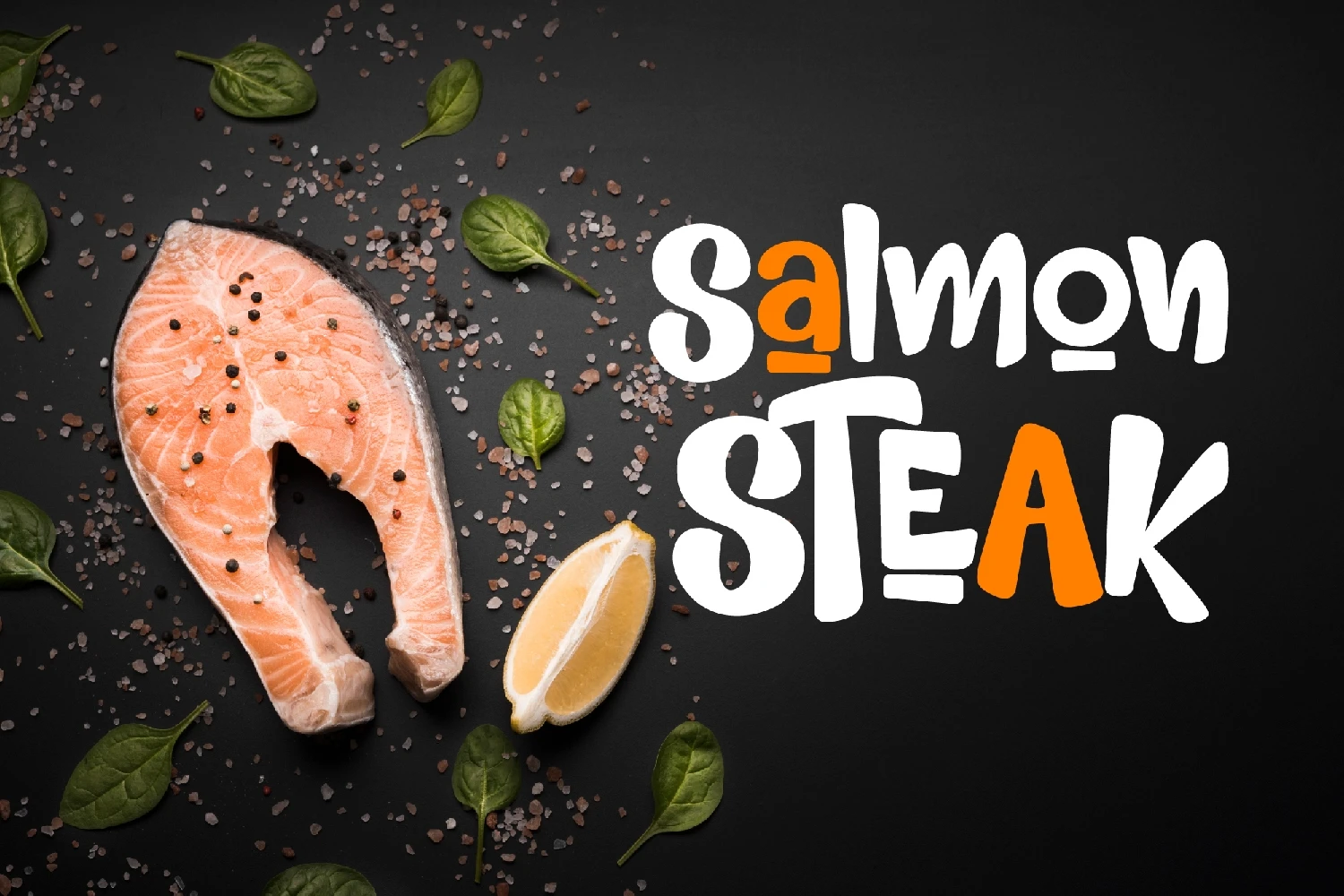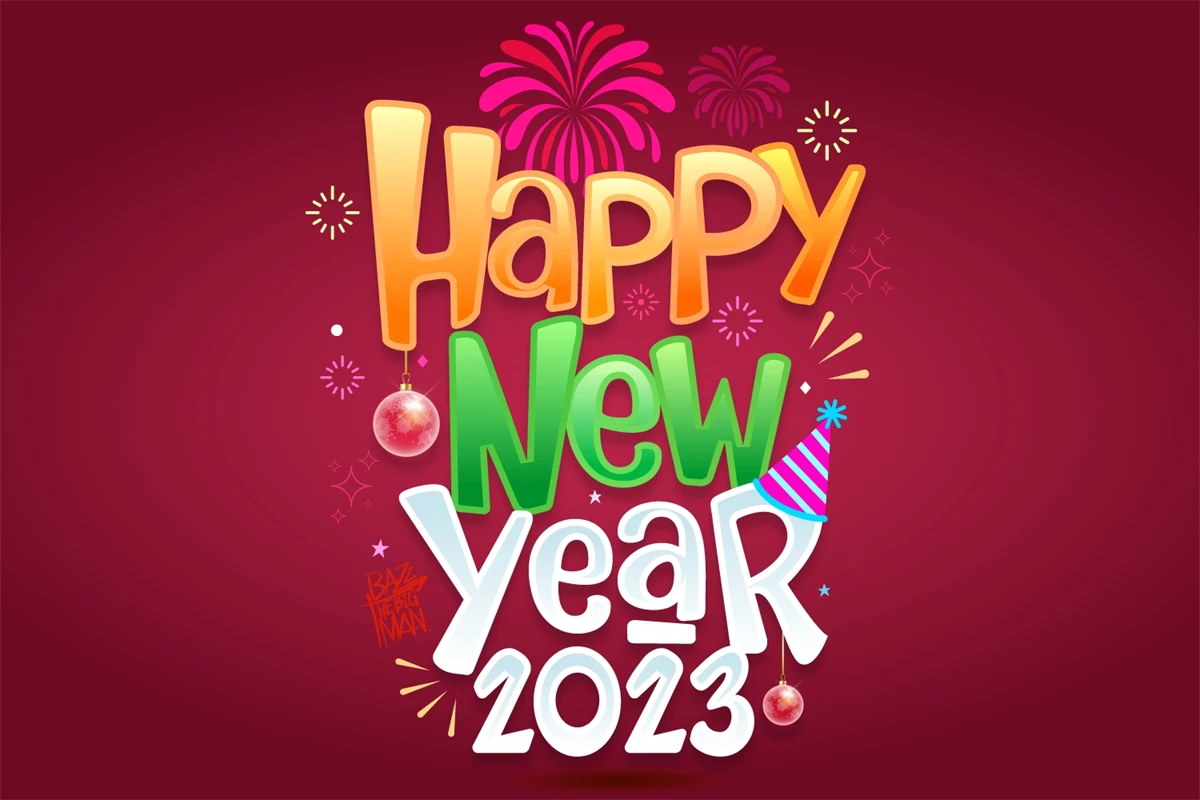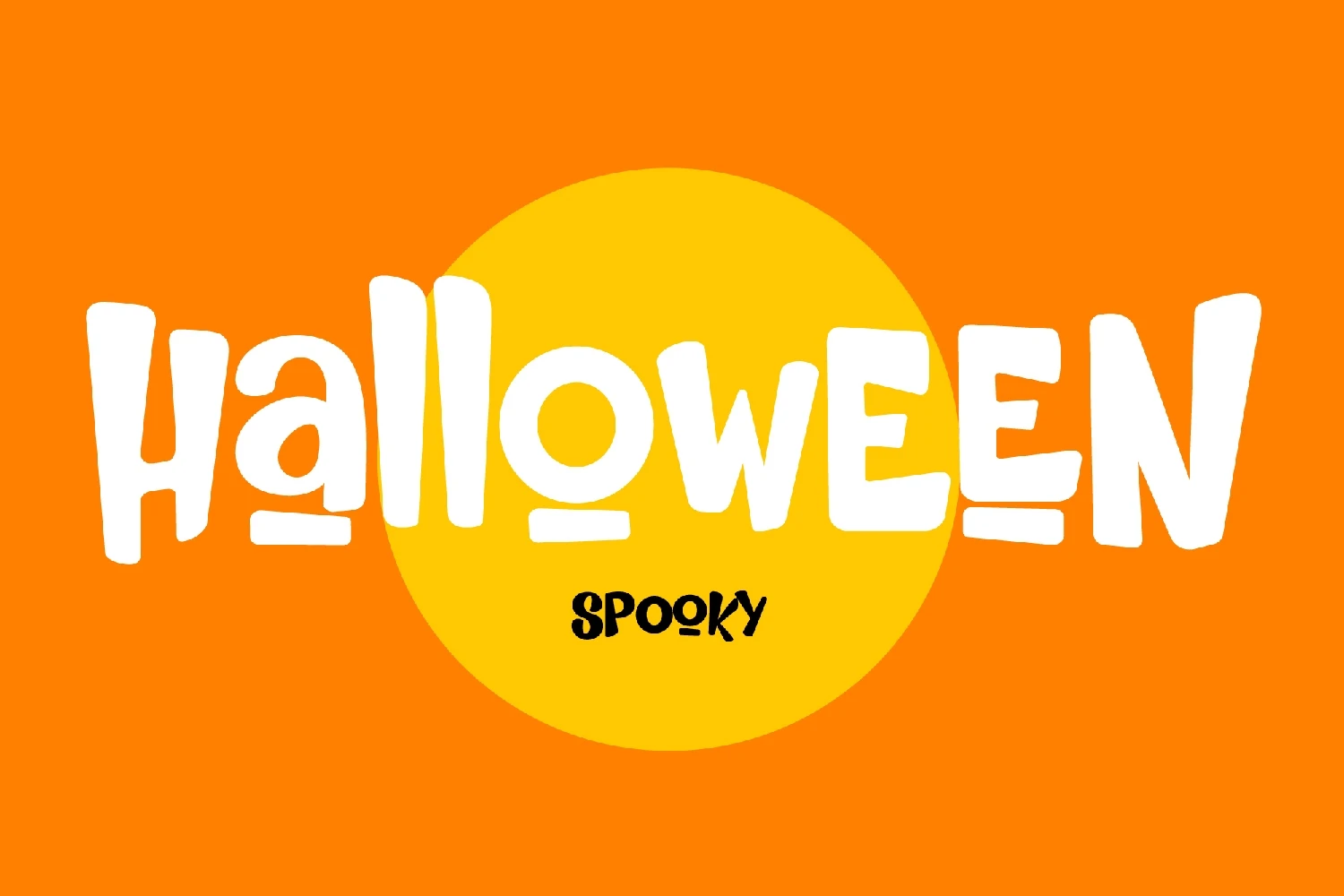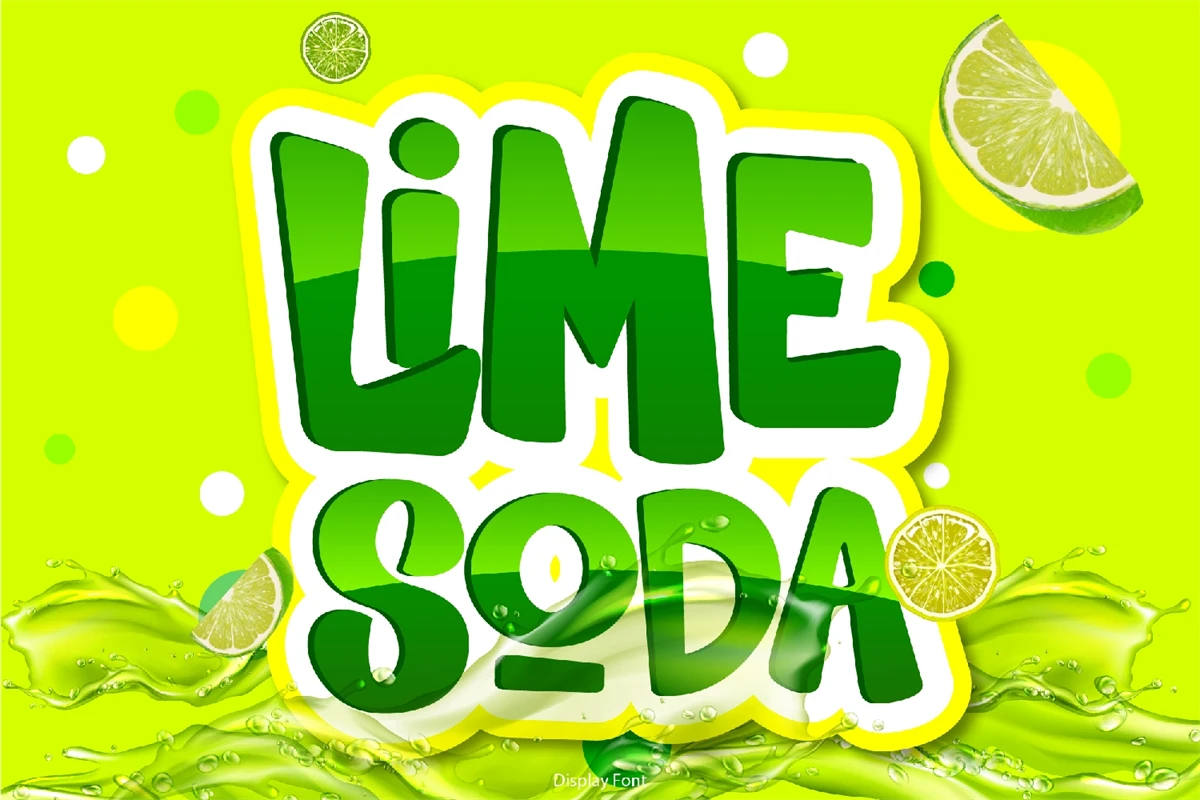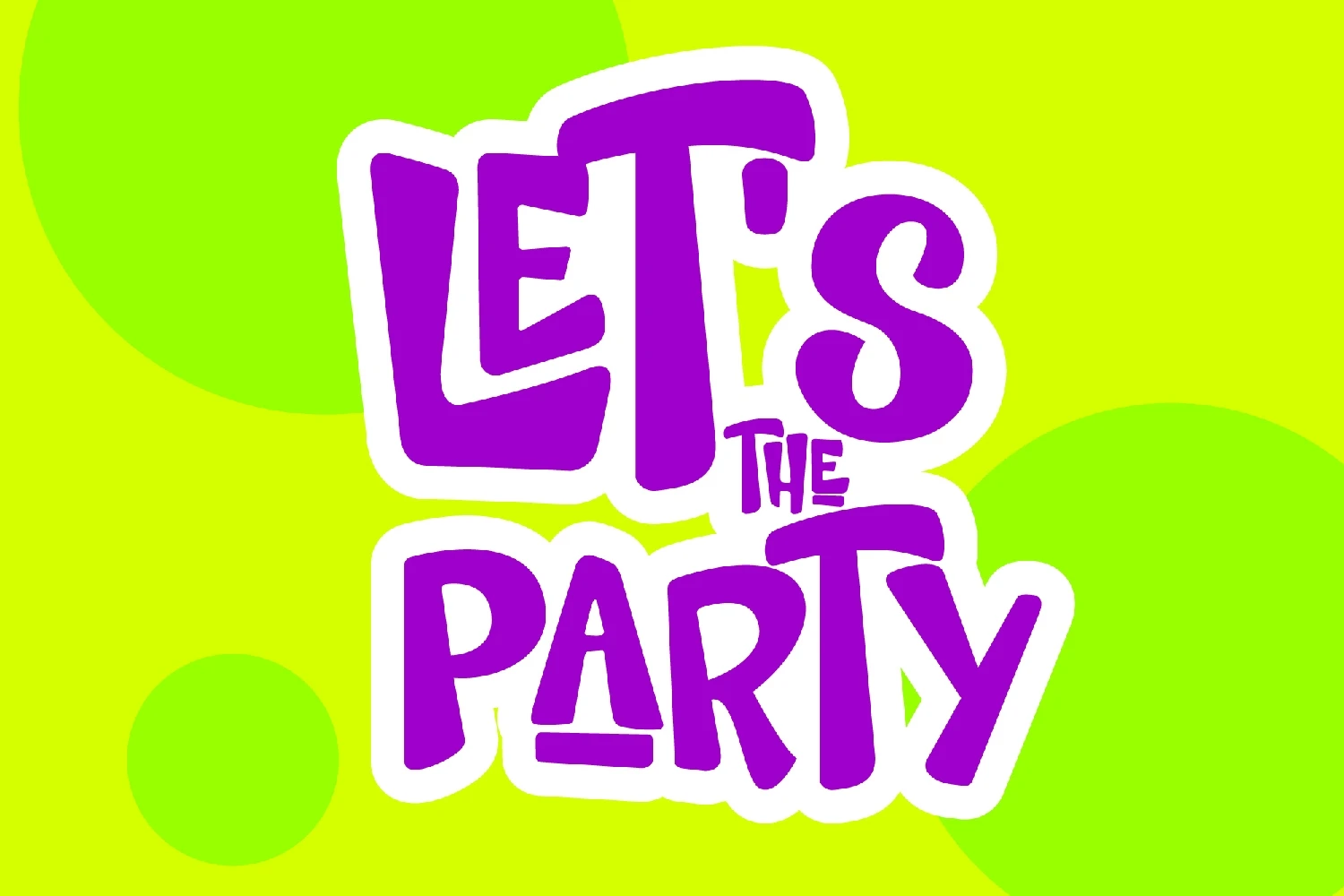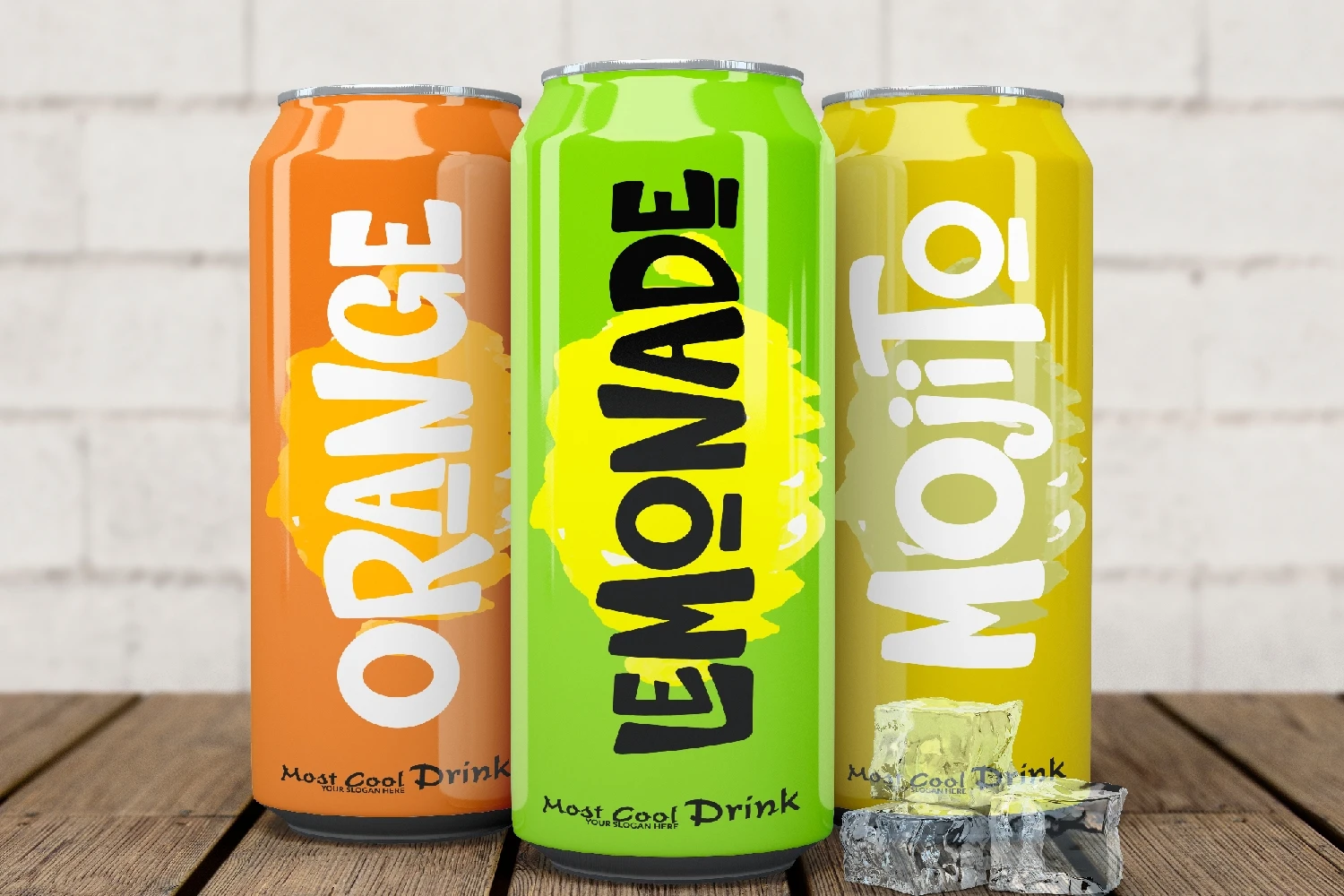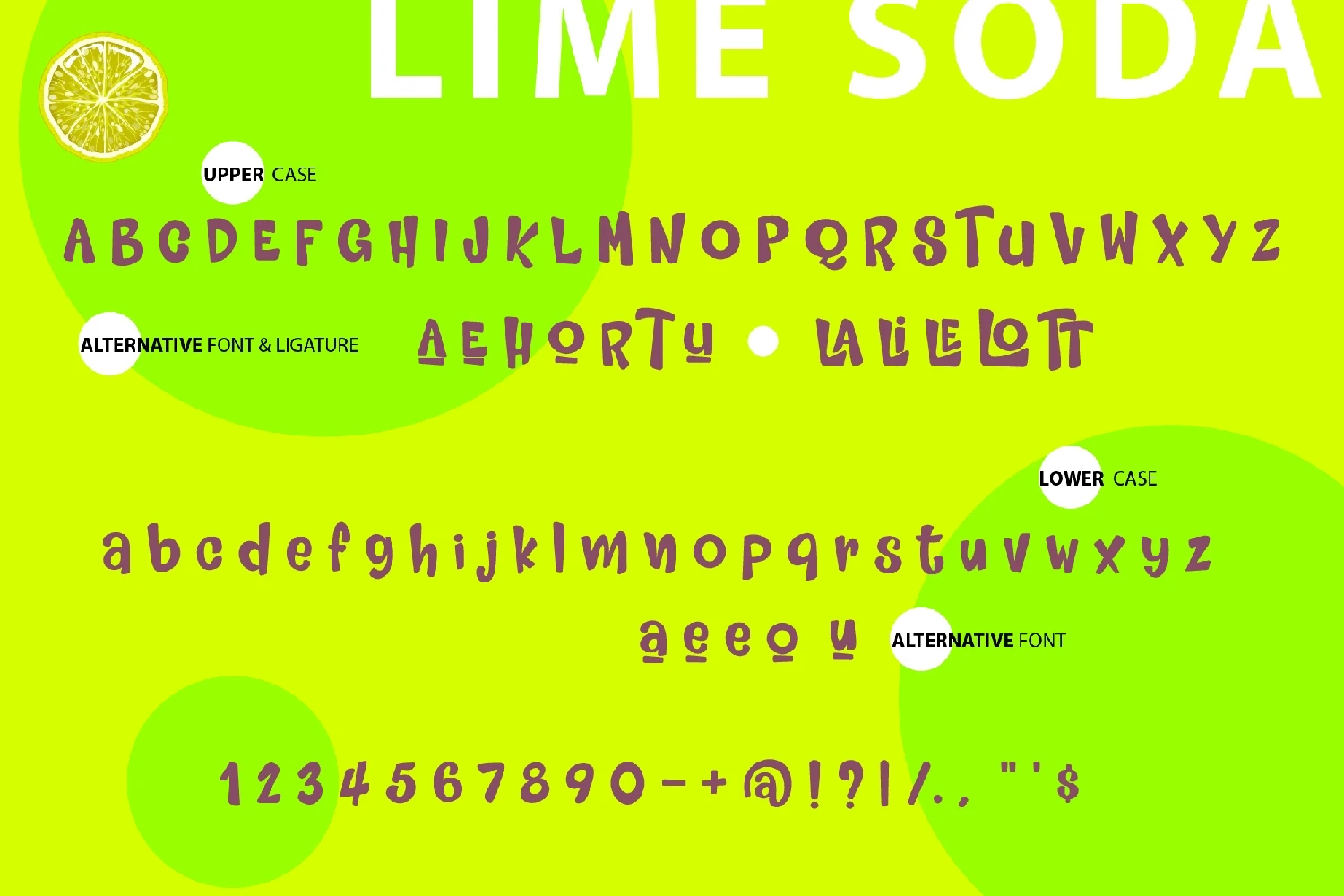
Lime Soda is a bold and quirky display font. Its friendly feel makes this font incredibly versatile, fitting a wide range of contexts. Add it to your creative ideas and notice how it makes them stand out!